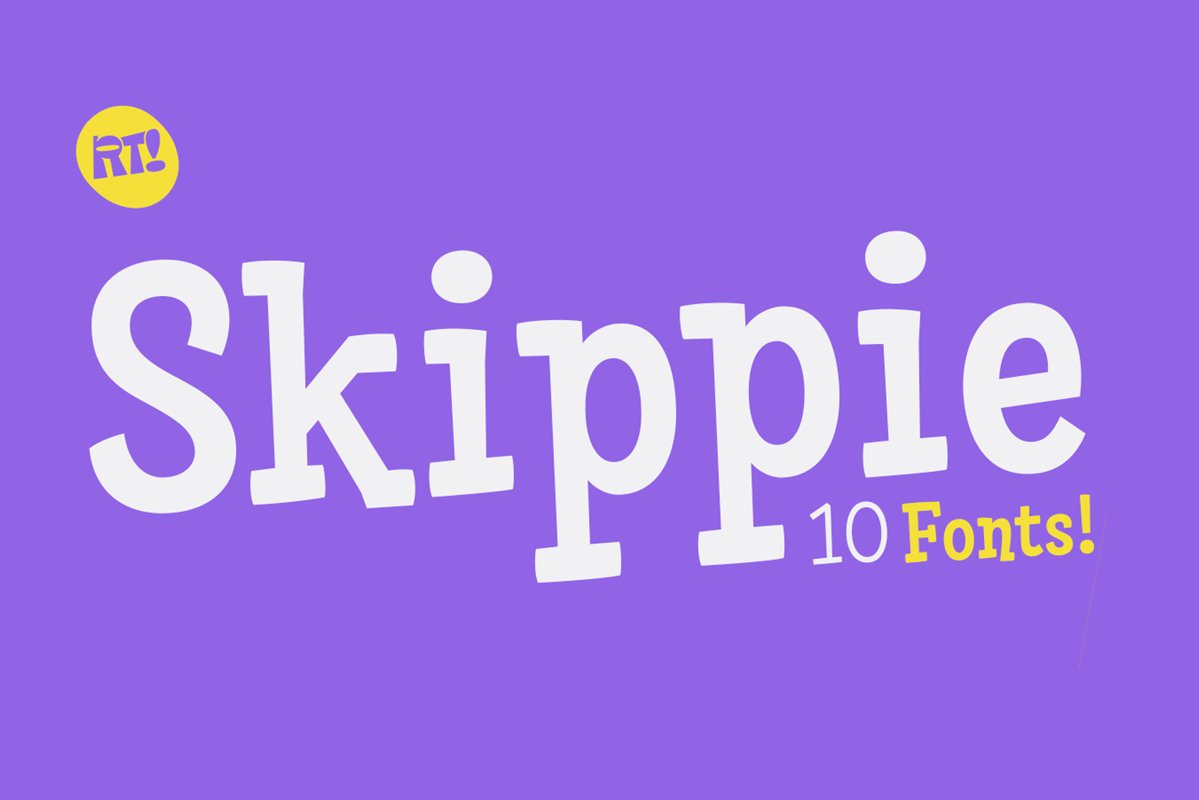
Skippie
Concept: A typeface specially designed for children's titles,
contains different weights from Thin to DemiBold, with extras
with Dingbats and many Alternatives + Cyrillic